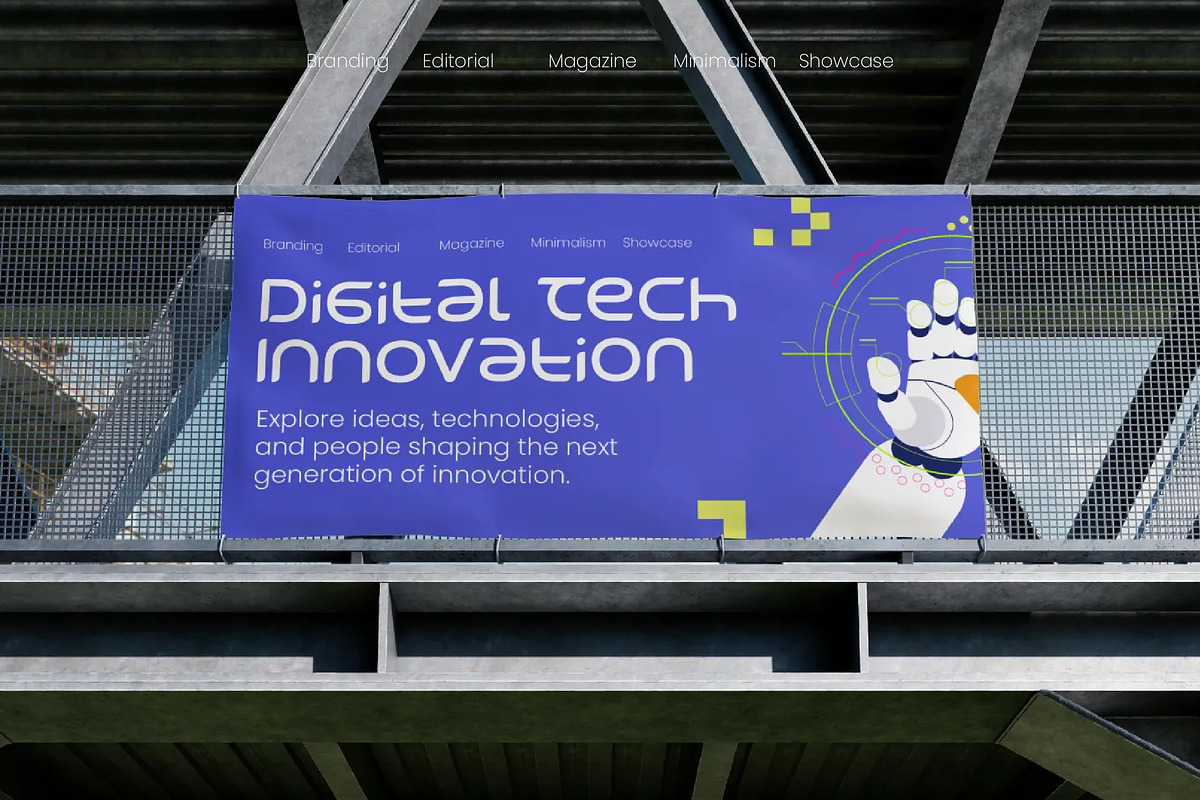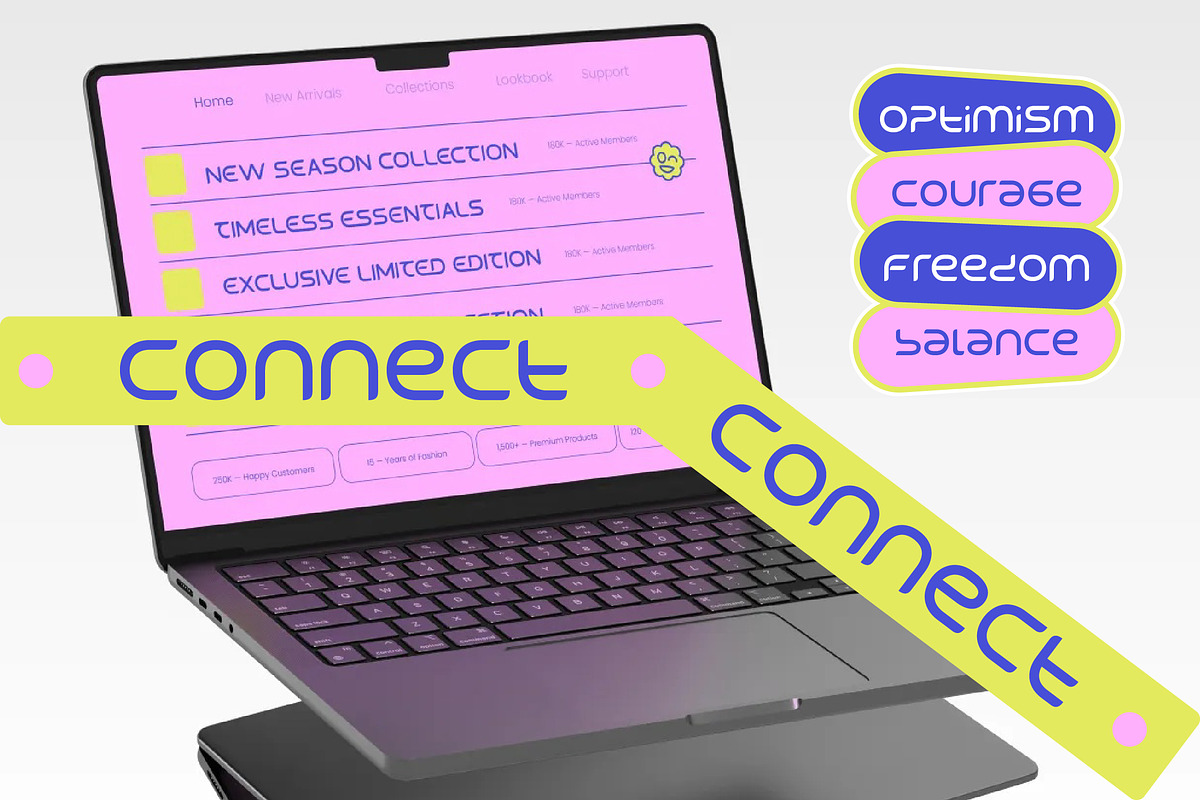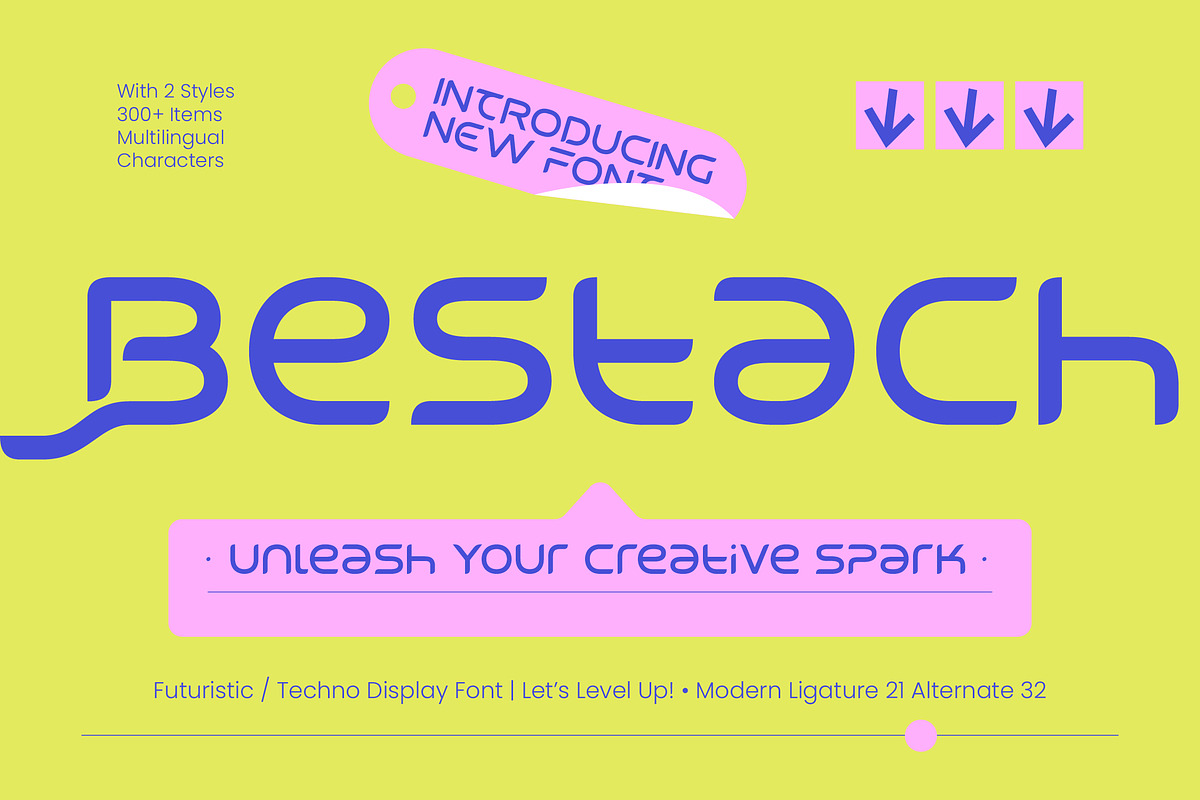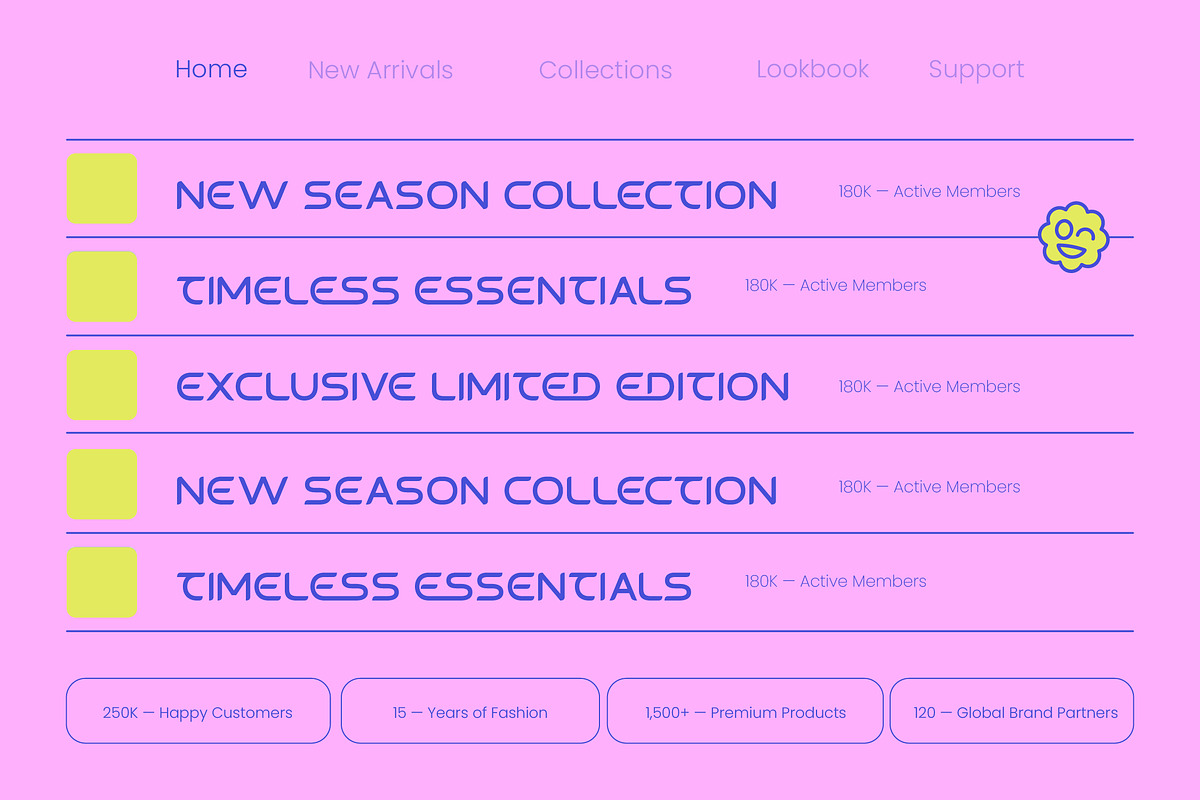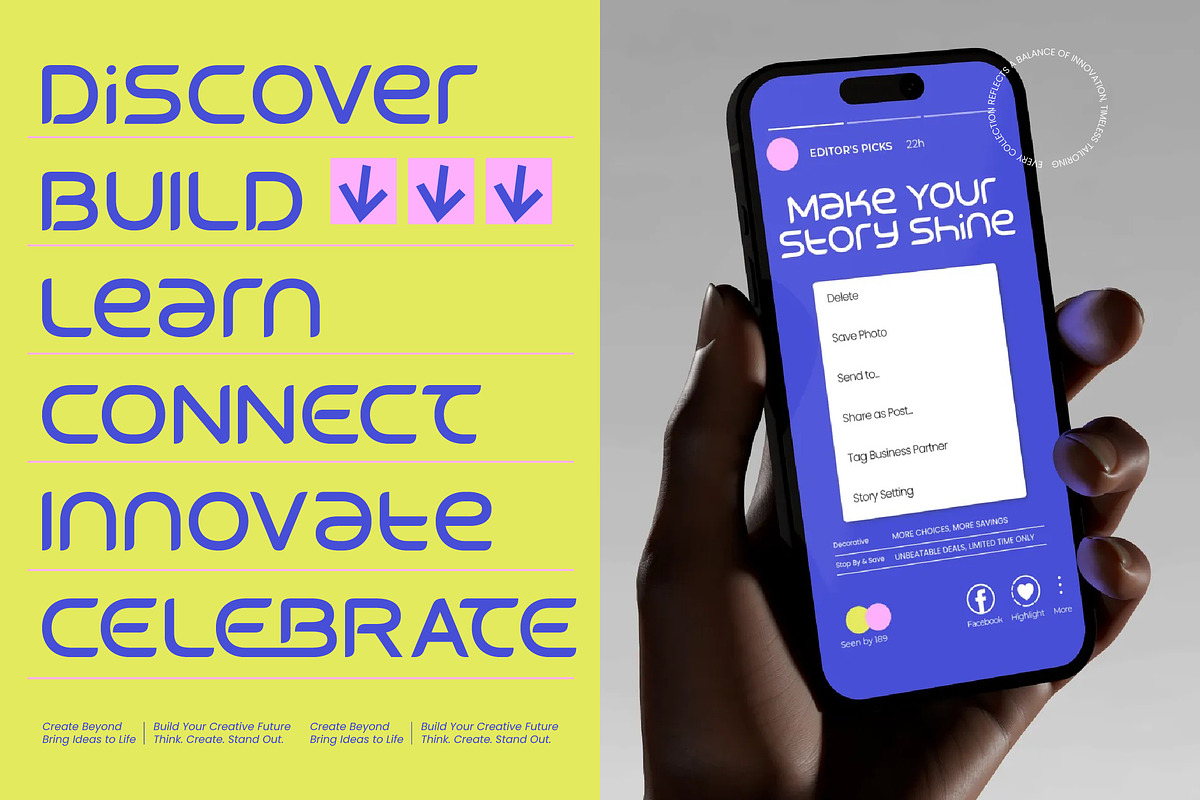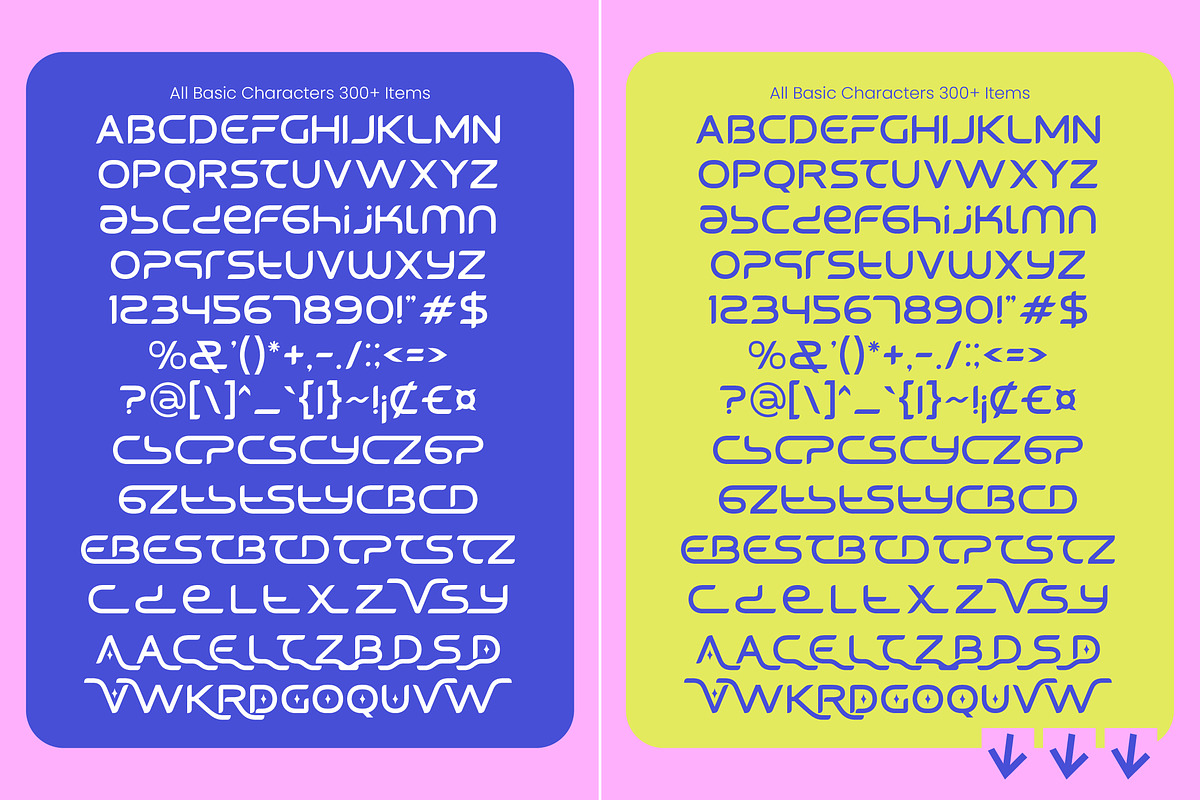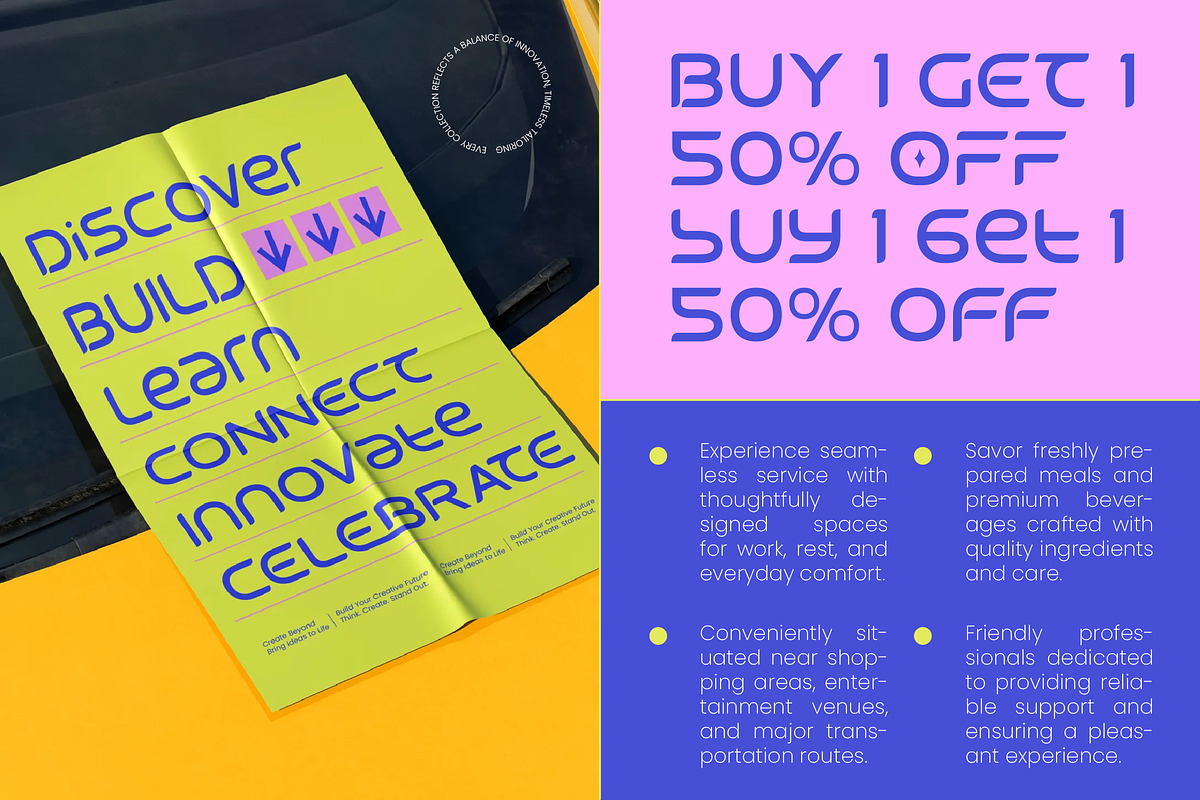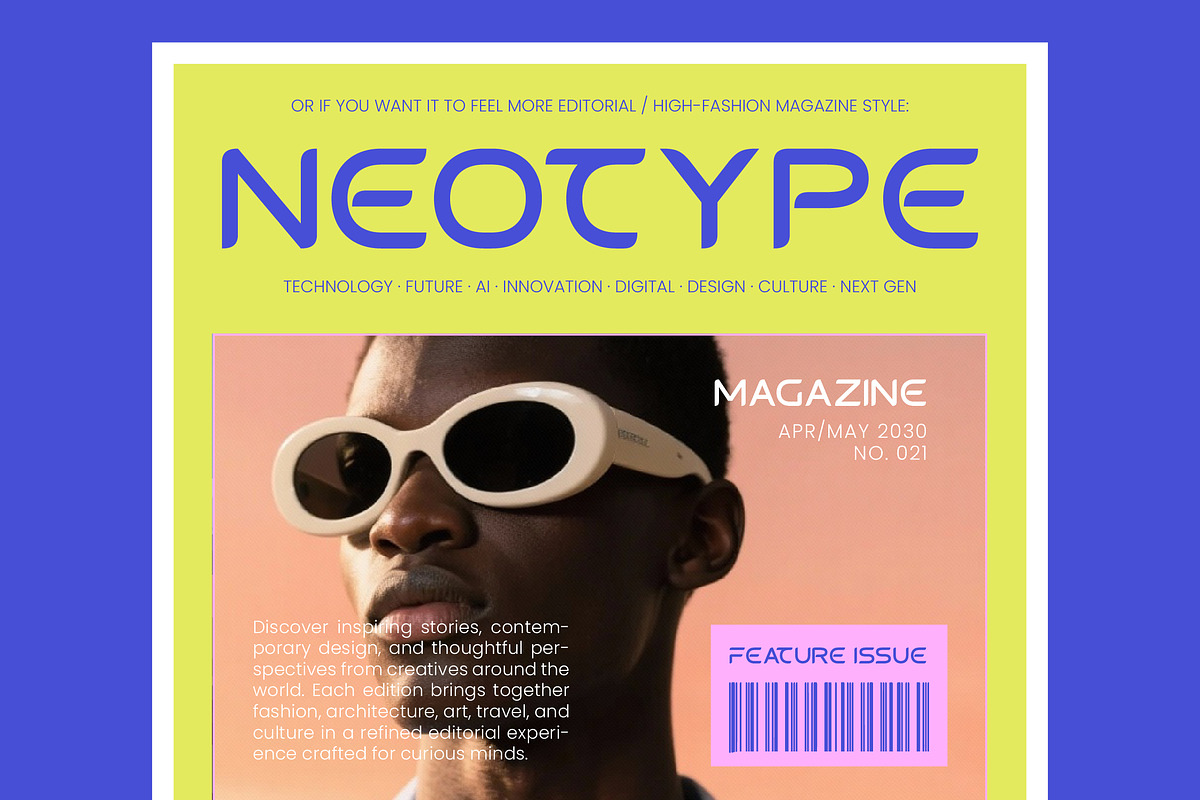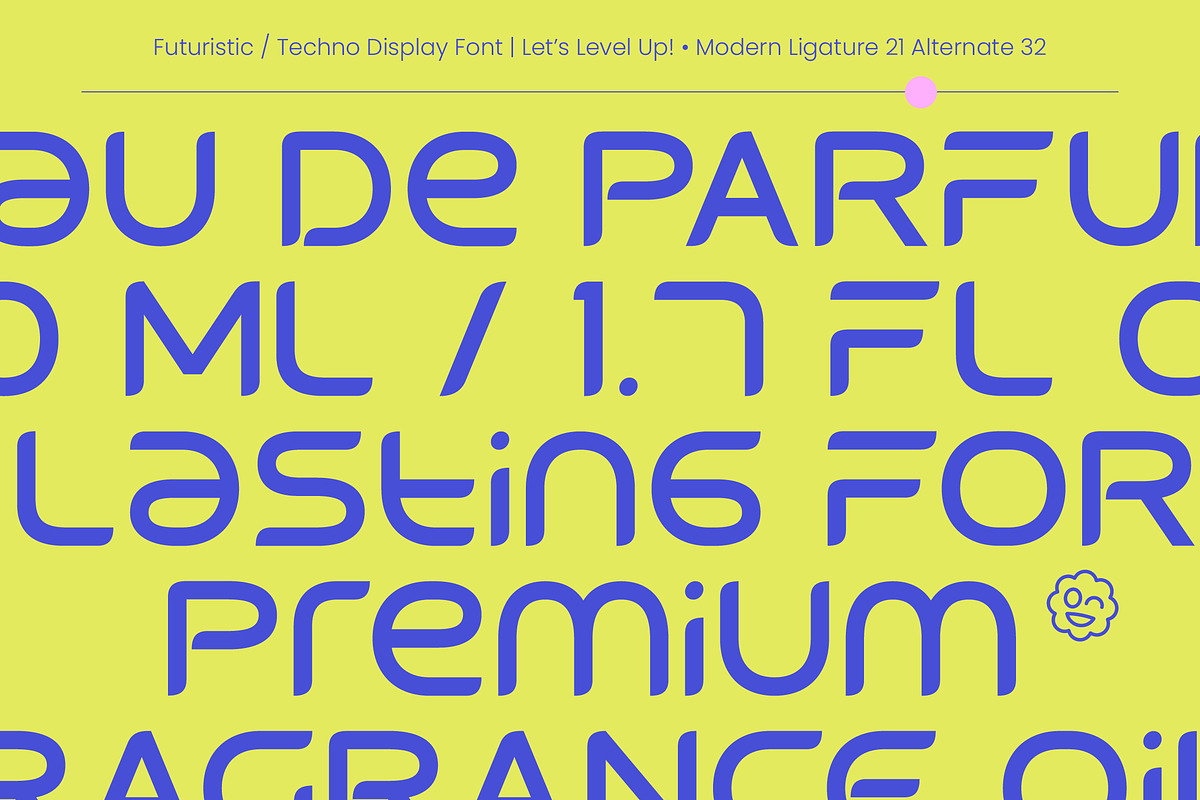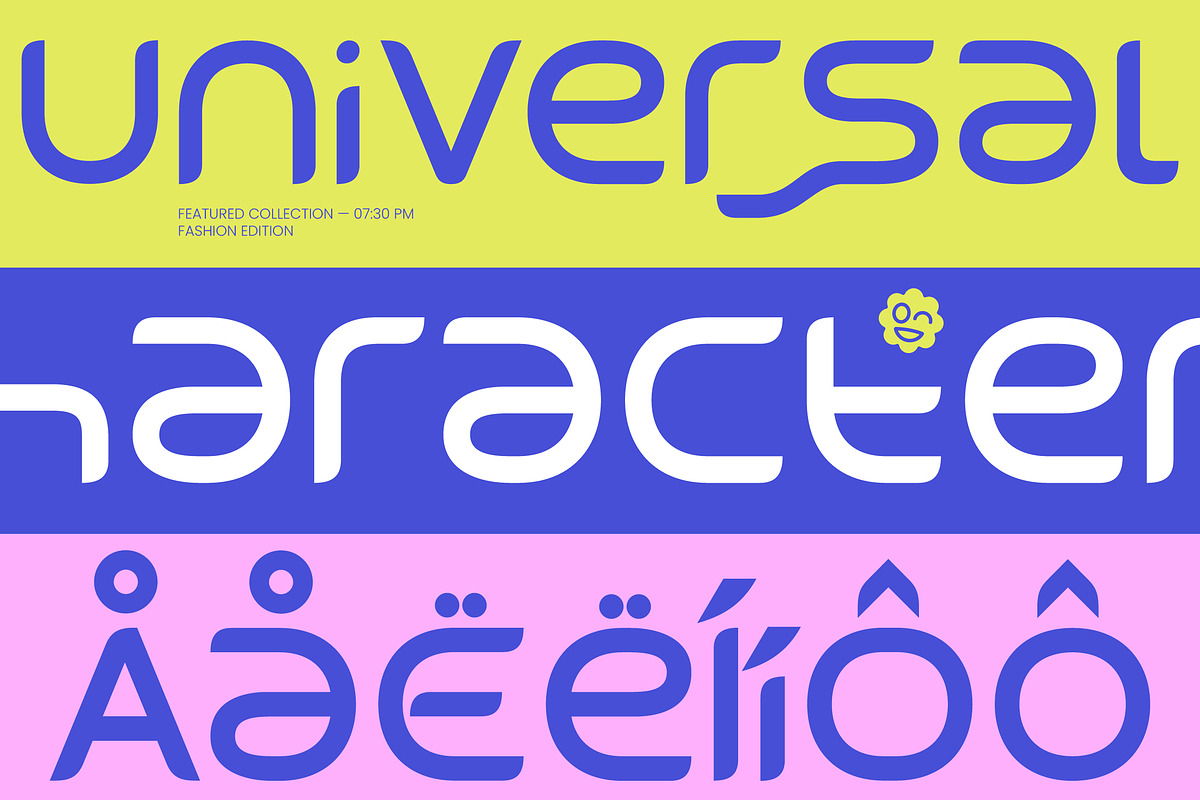
Bestach Futuristic Techno Display
Bestach - Futuristic Techno Display Sans , Redefine the boundaries of modern design with a cutting-edge aesthetic that commands immediate attention. Bestach - Futuristic Techno Display Sans is a bold display typeface engineered for the digital age, blending wide geometric proportions with sleek, techno-inspired curves. Its low-profile structure and innovative letterforms evoke a sense of future-forward motion, making it an essential tool for designers seeking to deliver a high-impact visual identity that feels both ultra-modern and sophisticated.
Elevate your brand to a global scale with unmatched functionality and technical precision. With its extensive multilingual support, Bestach - Futuristic Techno Display Sans adapts seamlessly across global markets, making it incredibly versatile for international projects. This high-performance font ensures that your message remains consistent and powerful regardless of the language, providing a unified brand voice for multinational corporations and digital innovators looking to expand their reach across the globe.
Perfect for high-stakes environments, this font is the ideal application choice for a variety of premium creative projects. Bestach - Futuristic Techno Display Sans is perfect for luxury branding, automotive marketing, gaming interfaces, and cyberpunk-inspired editorial design. Its distinctive silhouette makes it highly effective for bold packaging, cinematic movie posters, and high-tech signage where maximum legibility and stylistic dominance are paramount for commercial success.